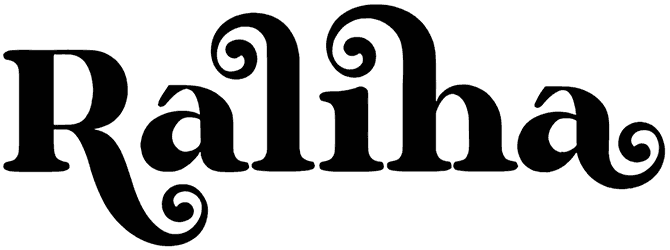
Raliha Font
Let us introduce an all-purpose font with a classic and humble face to you. Raliha is a serif font with an elegant and matchable face that can be used for any formal or informal project. Full character support in four styles gives you the opportunity to set it for many designs, from business presentations to social media posts.